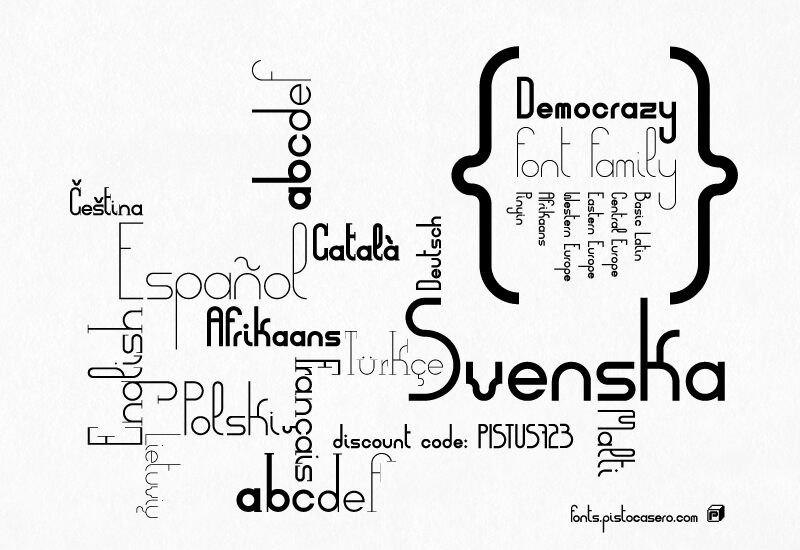
Democrazy Serif Light by Pisto Casero is a free retro display font with towering, slender letters and an unmistakable Art Deco cast. Rounded arches, long vertical strokes, and abrupt shifts in width give the alphabet an elegant, eccentric profile.
Its streamlined geometry echoes architectural line drawings, making it a natural match for period illustrations on posters and editorial covers. The elongated forms also suit fashion event graphics and music packaging with a theatrical vintage direction. In boutique branding, the lettering can frame a label or shape a memorable wordmark.
Democrazy Serif Light